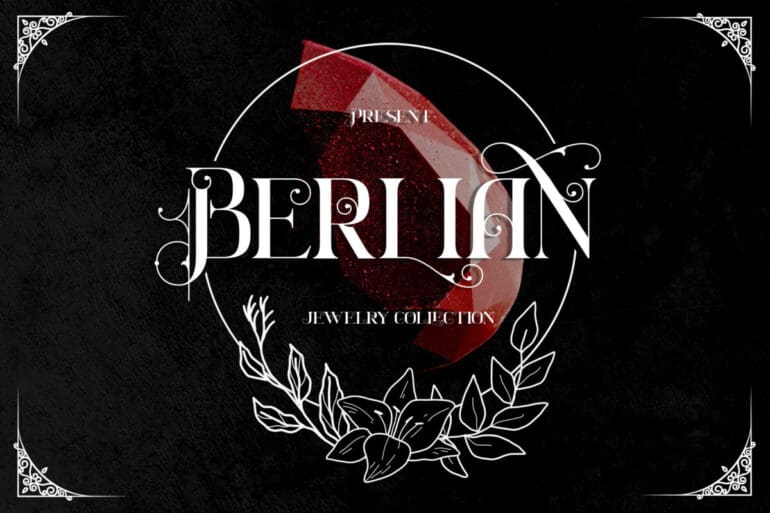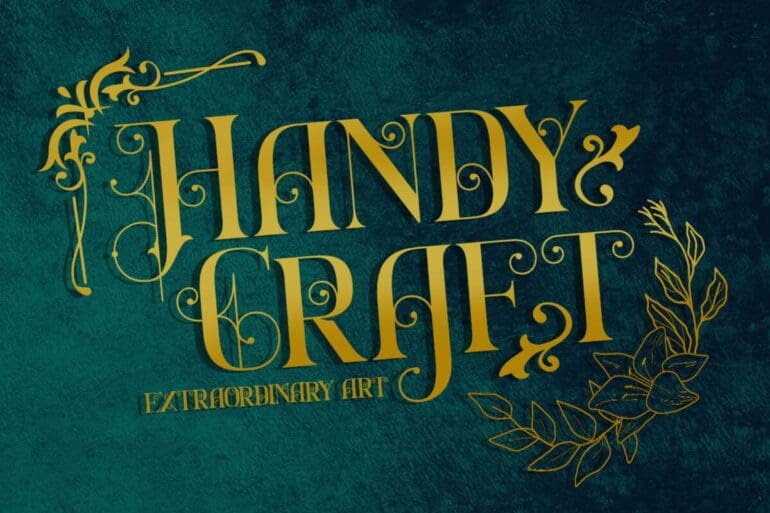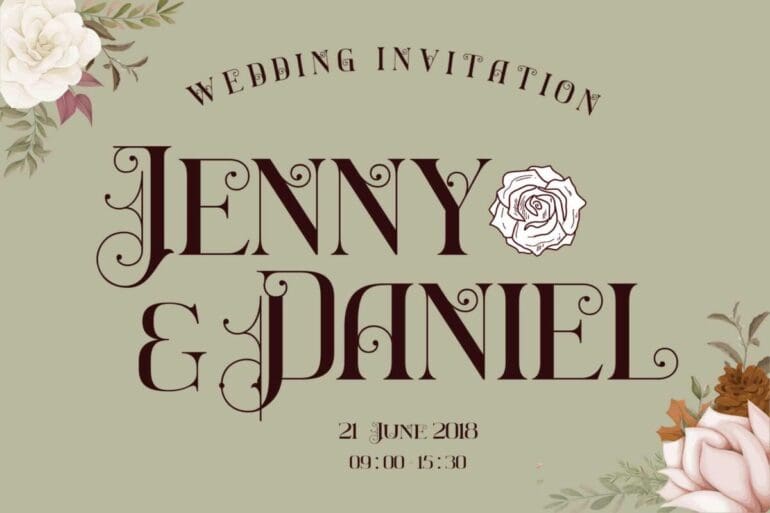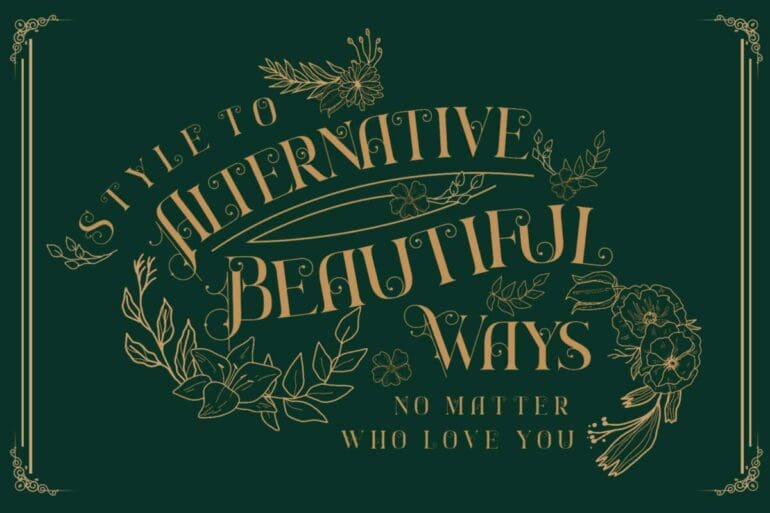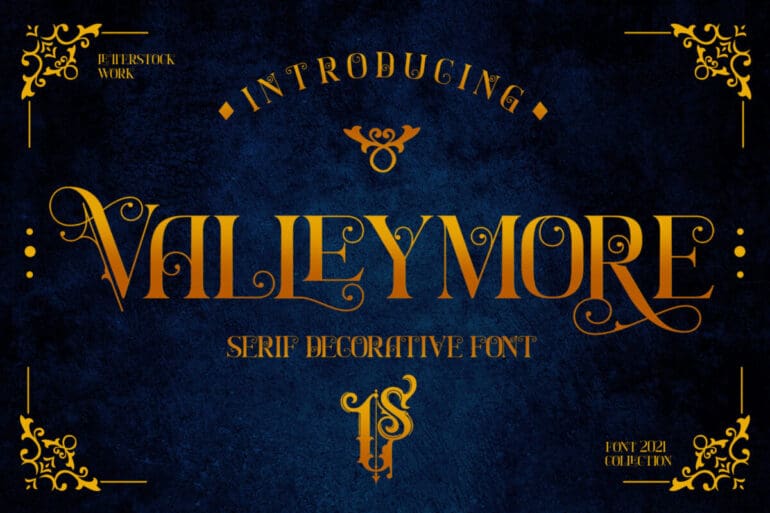
Valleymore Font
Valleymore Font. This pair was inspired by an elegant calligraphy poster design that I saw on some coffee shop, It was crafted by hand especially to add a natural handmade feeling in its brand identity then I make it clean with pentool.